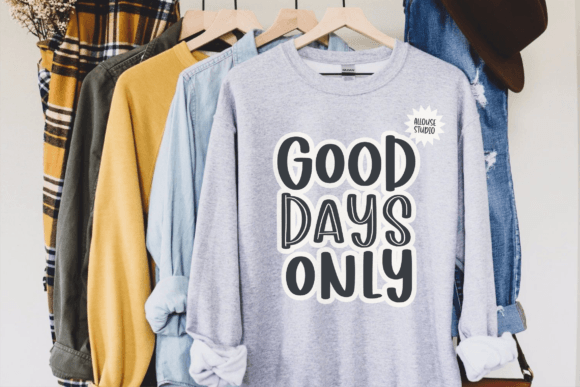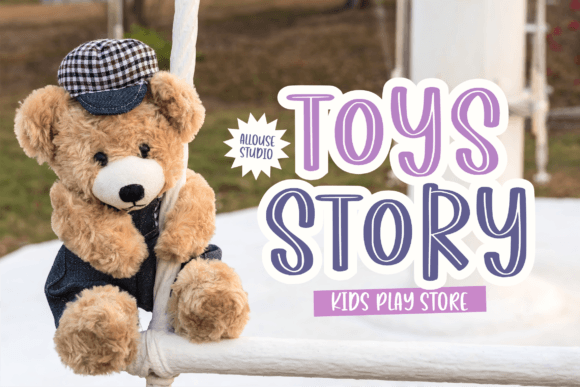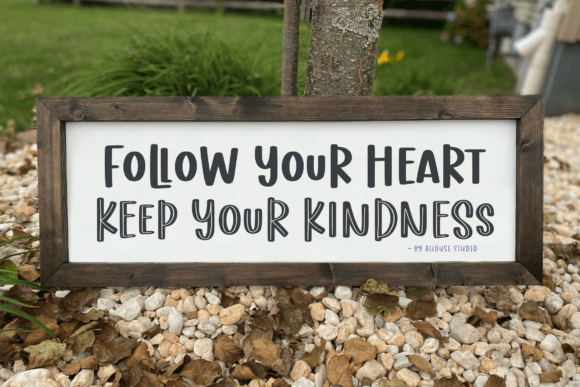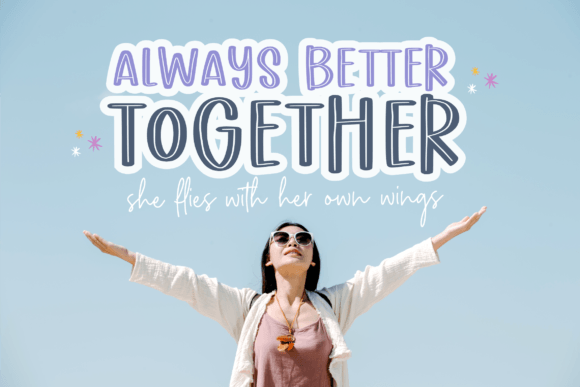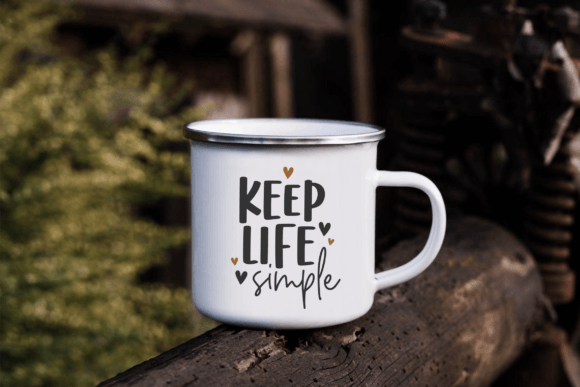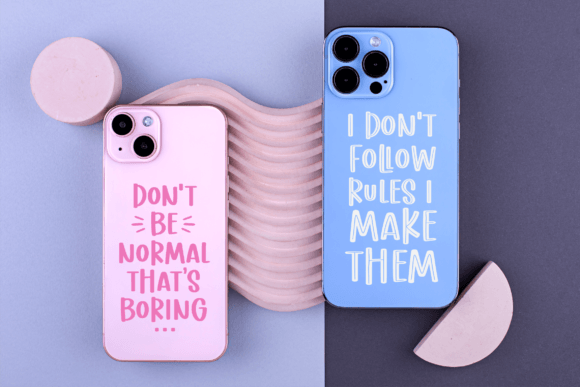
I still remember the frustration of working on a branding project for a trendy coffee shop. My client wanted a font that was playful, yet sophisticated, and would appeal to their target audience of young adults. I spent hours scouring font websites, but nothing seemed quite right. That was until I stumbled upon the Hello Hungry font. With its inline handwritten style and two unique styles, it was the perfect fit for the project. In this article, I’ll share my experience with Hello Hungry, its features, and how to make the most of it in your designs.
A Personal Review of Hello Hungry
- ✨ Unique Inline Style: Hello Hungry’s inline handwritten style sets it apart from other fonts. It’s perfect for adding a touch of personality to your designs.
- ✅ Two Styles: The font comes in two styles, allowing you to mix and match to create visual interest.
- 💡 OpenType Features: Hello Hungry supports OpenType features, including glyphs and stylistic alternates, giving you even more creative control.
While Hello Hungry is an excellent font, there are a few things to keep in mind:
- ⚠️ Limited Use in Small Sizes: As with many handwritten fonts, Hello Hungry may not be the best choice for very small text sizes, as some details may get lost.
- 🤔 Glyph Compatibility: Some glyphs or special characters might not work seamlessly with all design software or platforms.
The Story Behind Hello Hungry
Hello Hungry was designed with the intention of creating a friendly, approachable font that would bring a smile to the reader’s face. The designer aimed to craft a font that felt both modern and nostalgic, perfect for a wide range of design applications. Whether you’re working on product packaging, branding projects, or just want to add a personal touch to your social media graphics, Hello Hungry is an excellent choice.
| Font Name | Hello Hungry Font |
| Author | allouse.studio |
Q: What is the Hello Hungry font best used for?
A: Hello Hungry is perfect for product packaging, branding projects, magazines, social media, weddings, or just used to express words above the background.
Q: Does Hello Hungry support OpenType features?
A: Yes, Hello Hungry supports OpenType features, including glyphs and stylistic alternates, giving you more creative control over your designs.